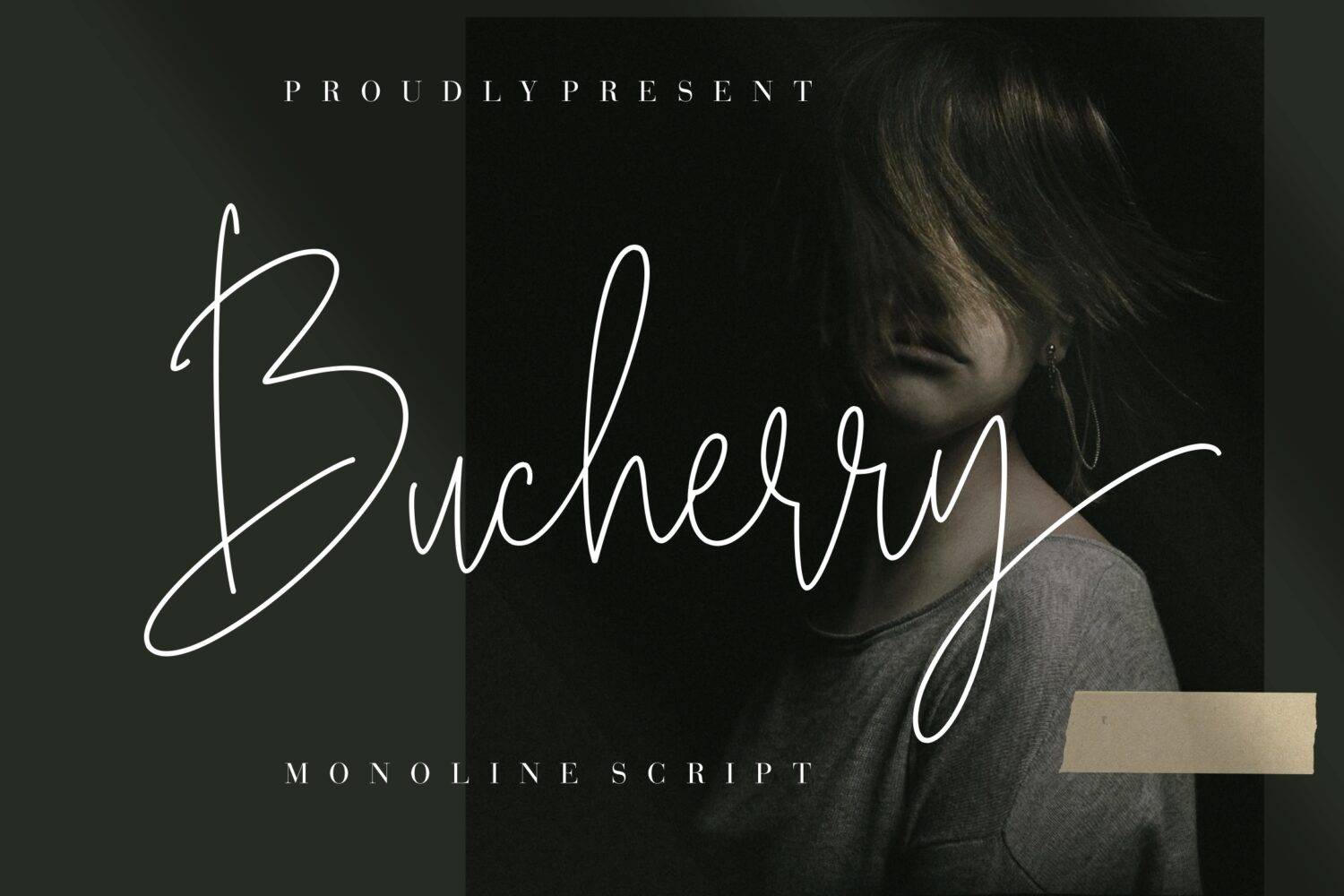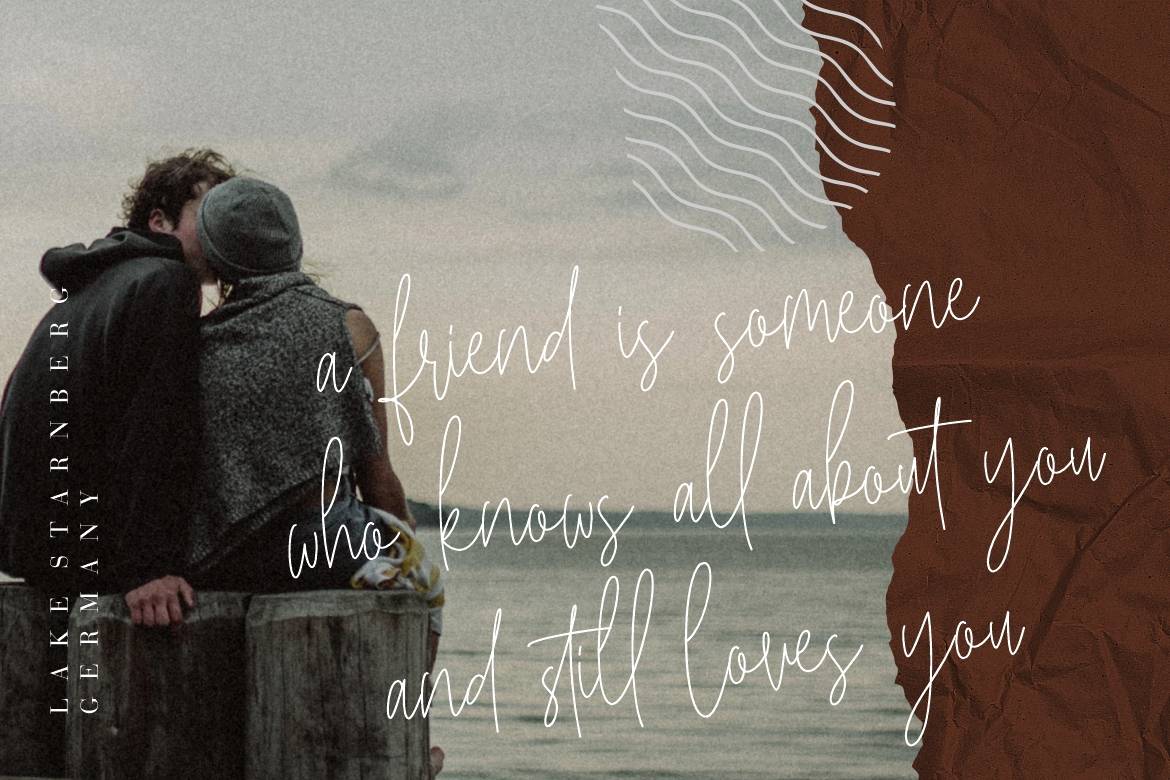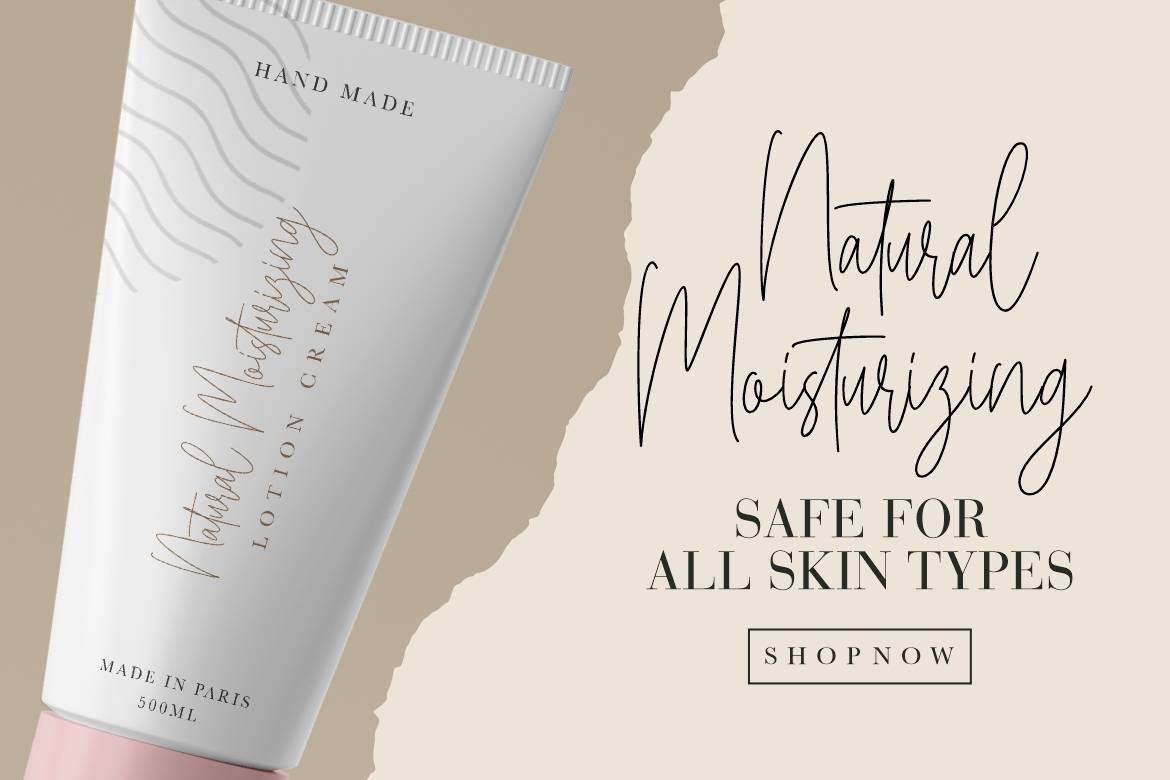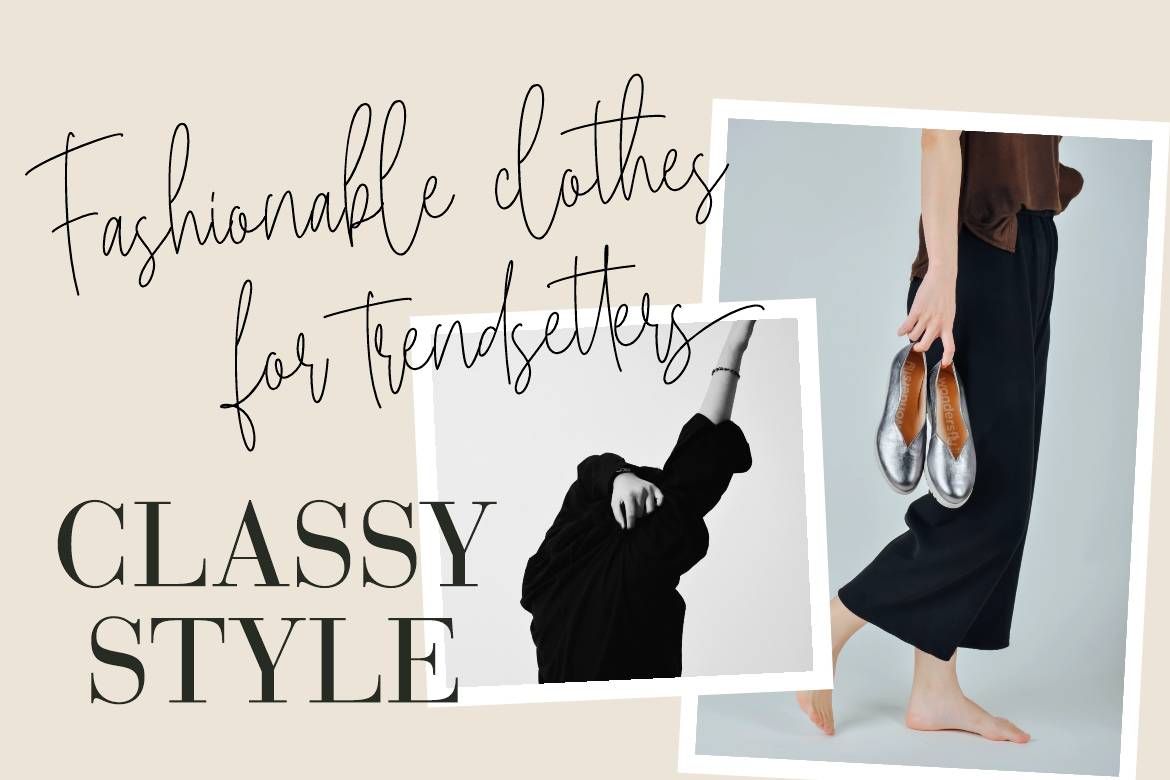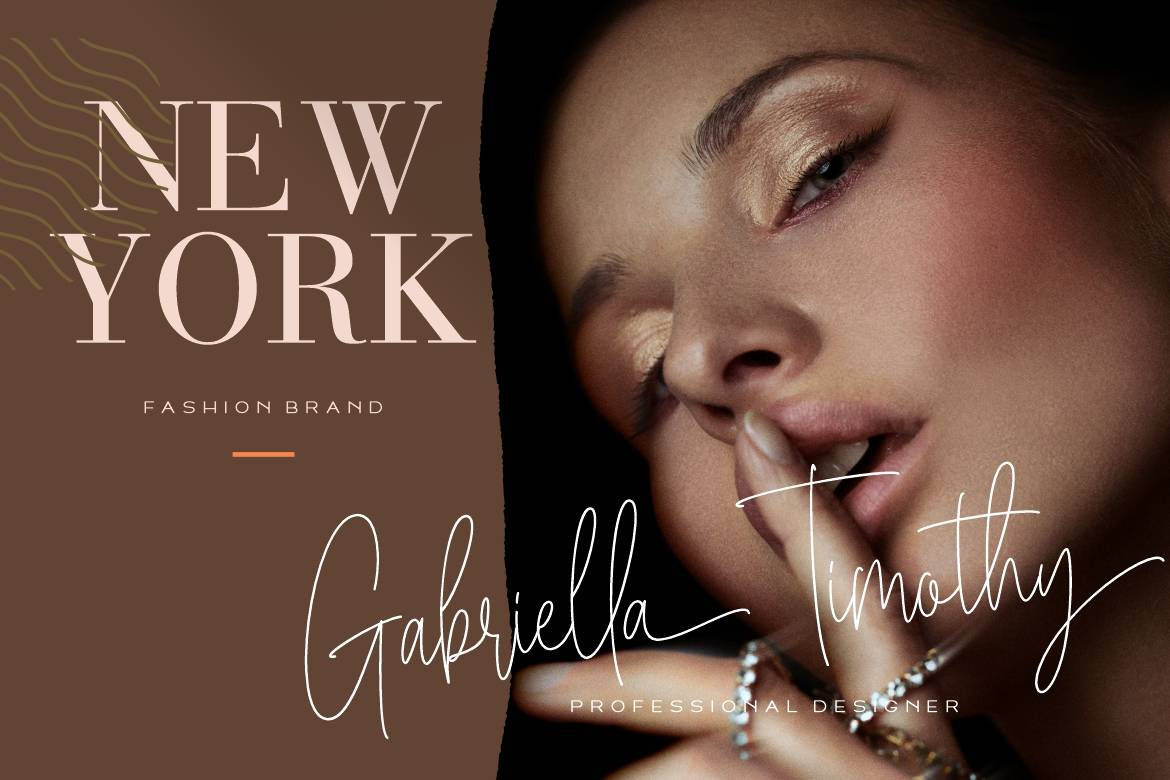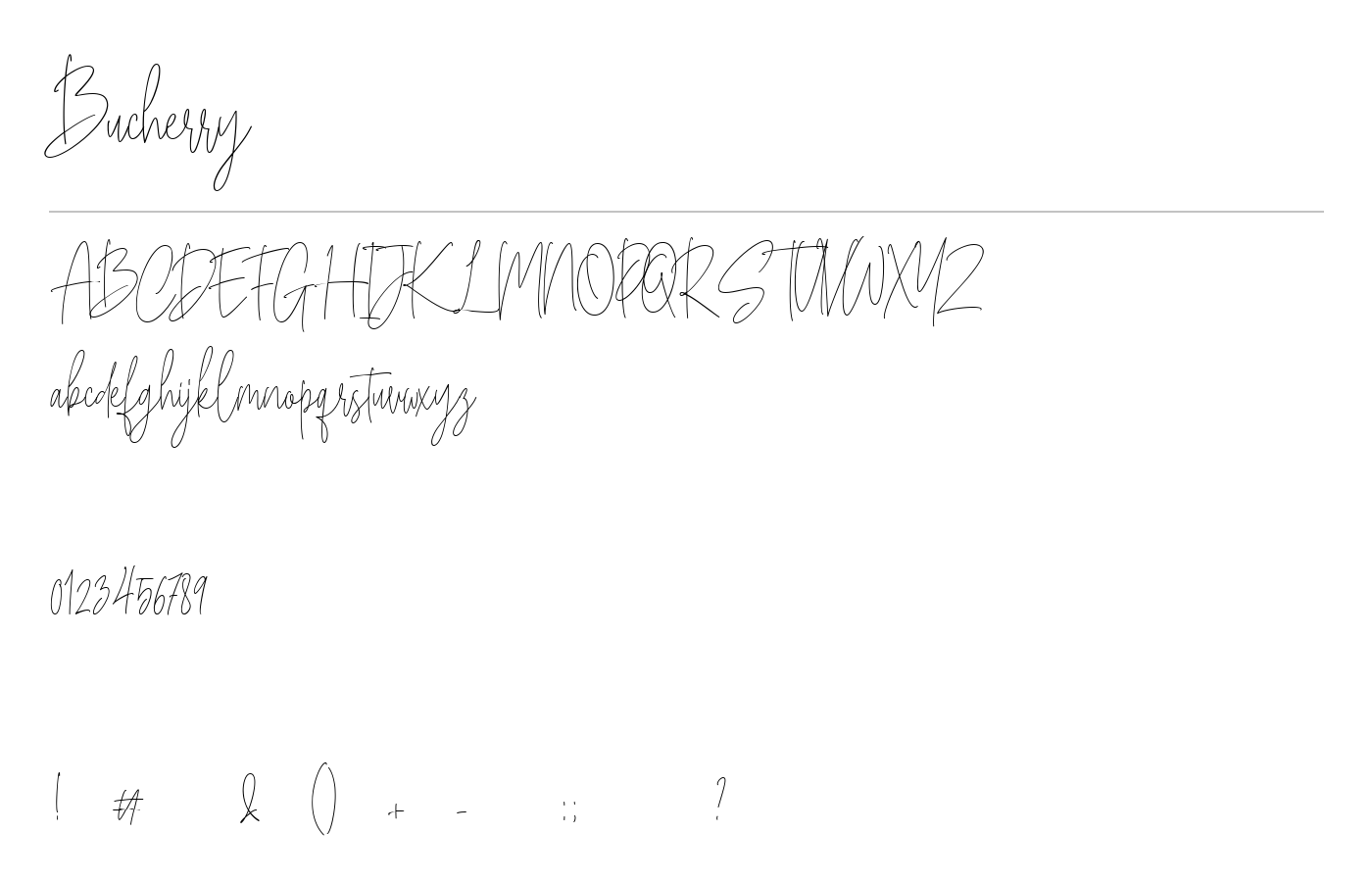
Bucherry is a delicate, handwritten script font with a light weight and narrow width, characterized by tall, slender letterforms and a whimsical, airy feel. Its elegant, flowing strokes convey a personal and artistic touch, making it ideal for creative branding, invitations, and feminine or romantic designs where a sophisticated yet casual style is desired. This font works best in large sizes for headlines or logos to showcase its intricate details.
Bucherry Font
About Bucherry Font